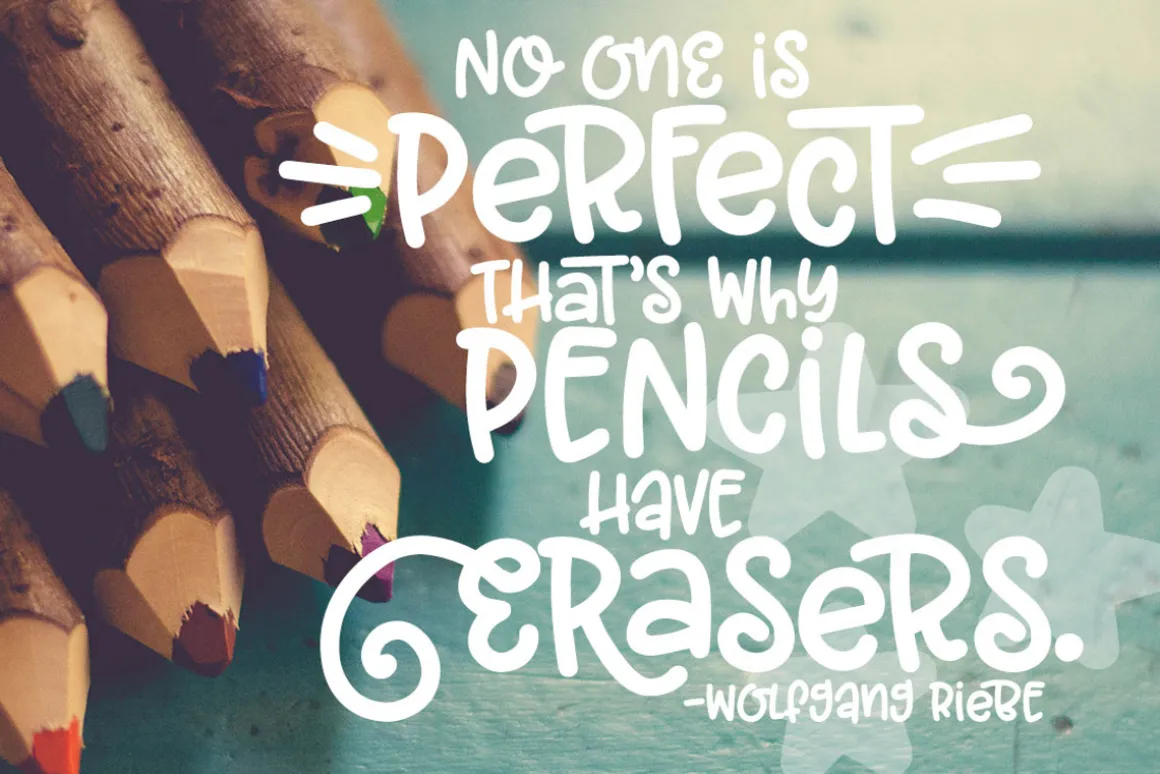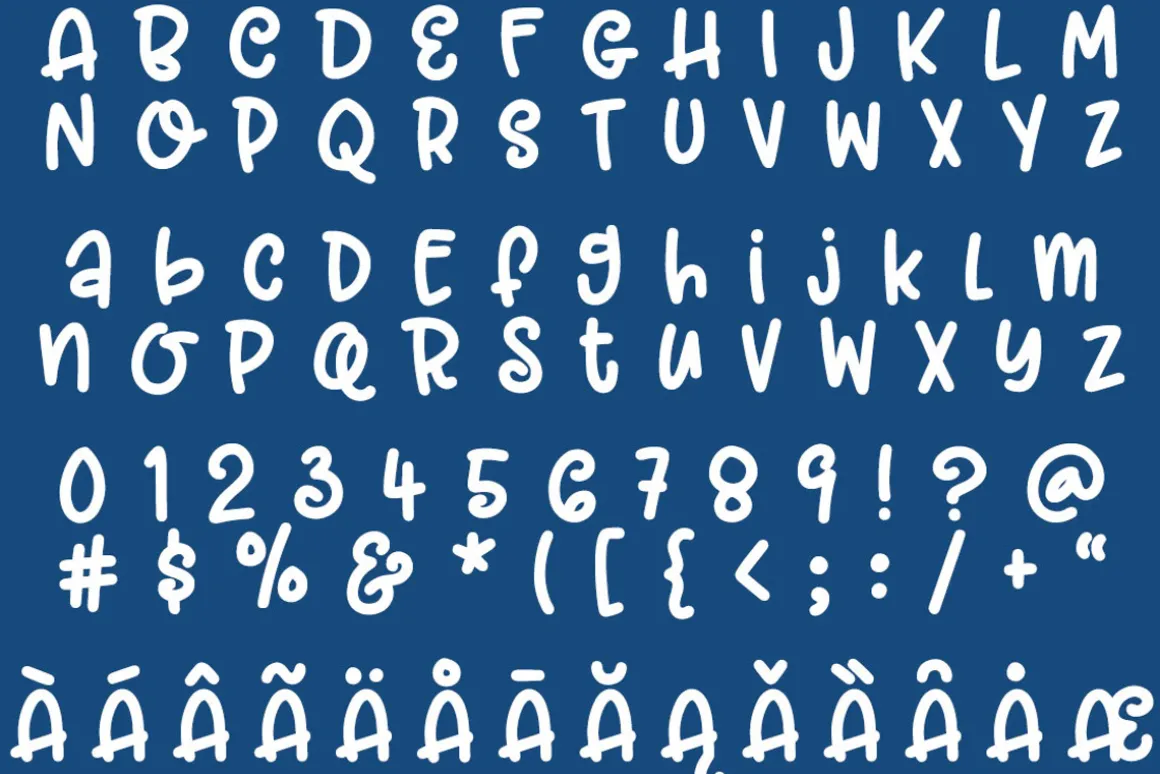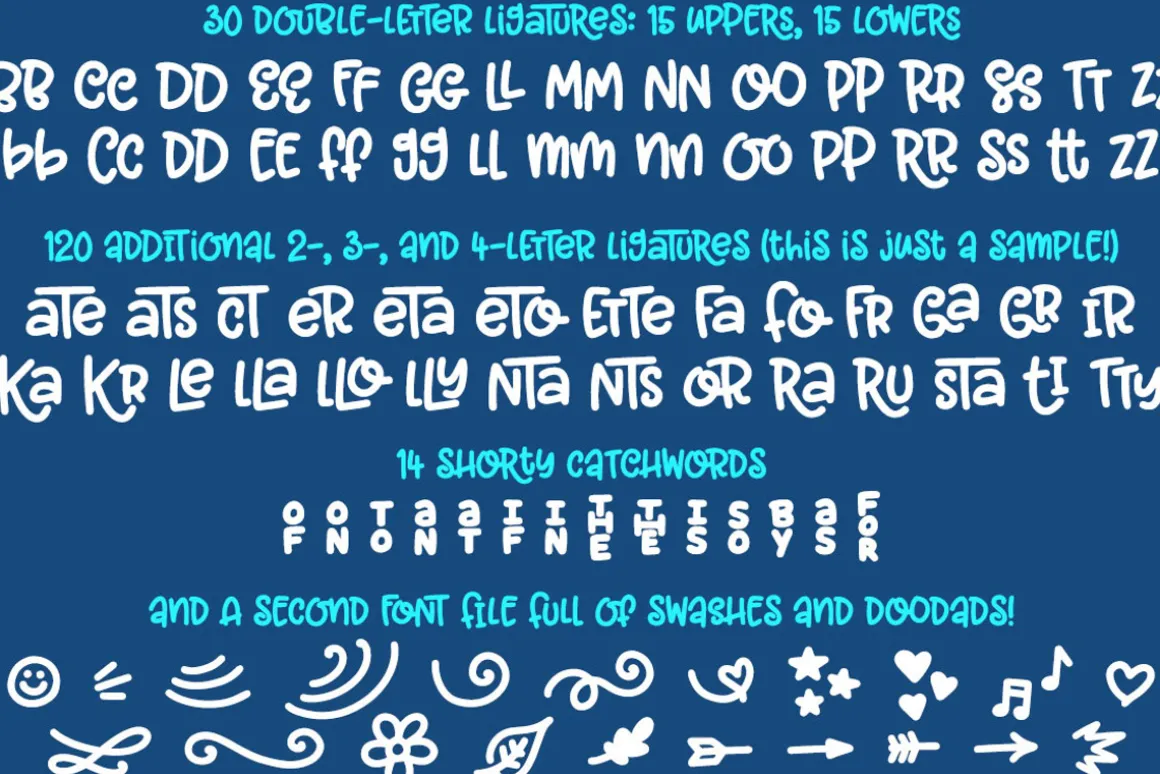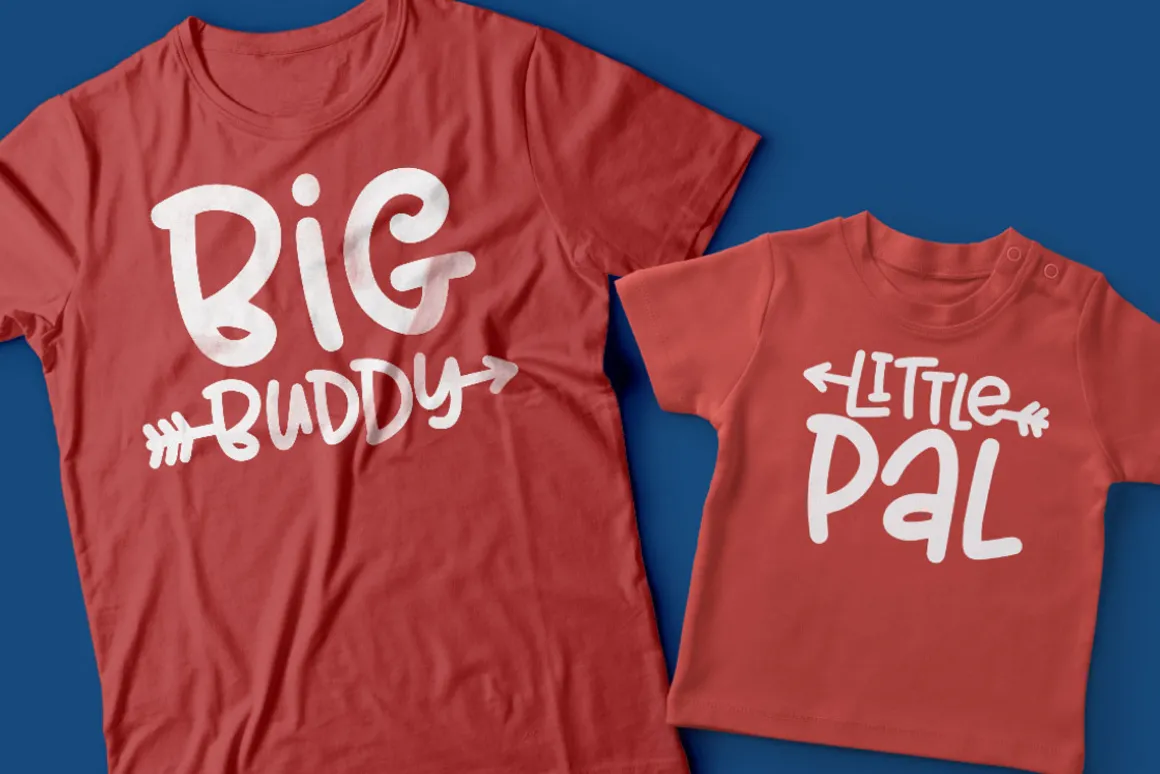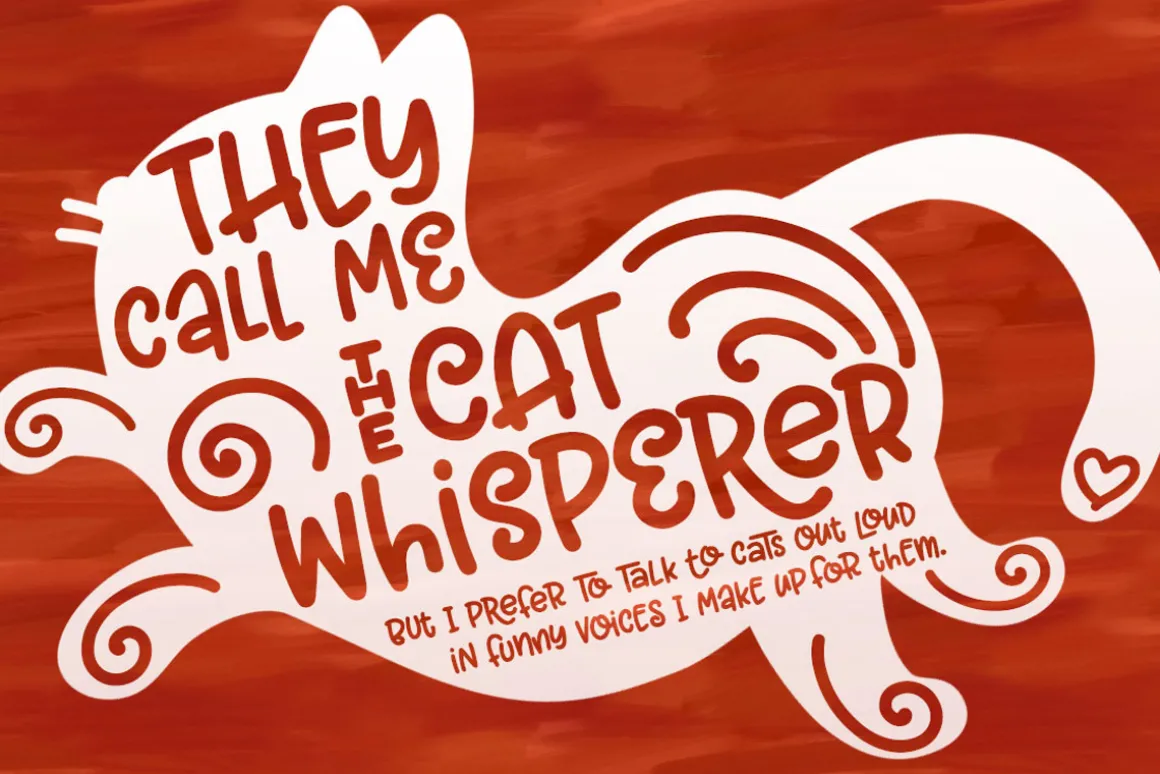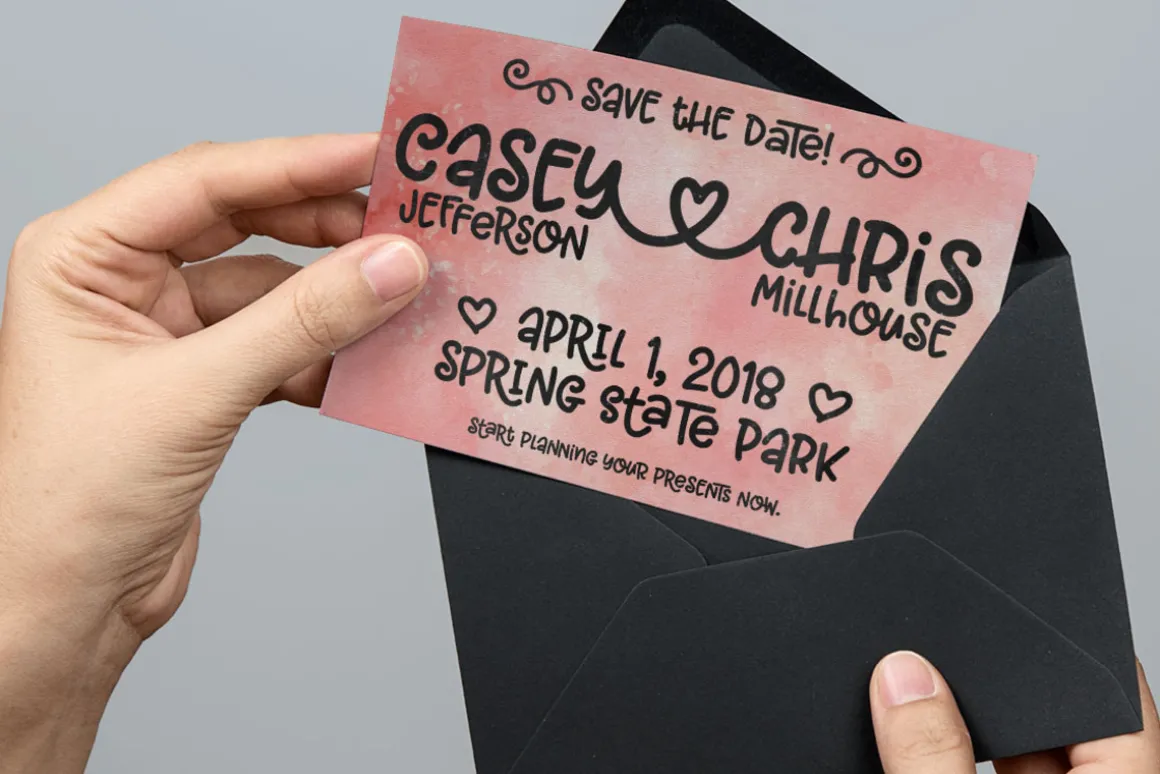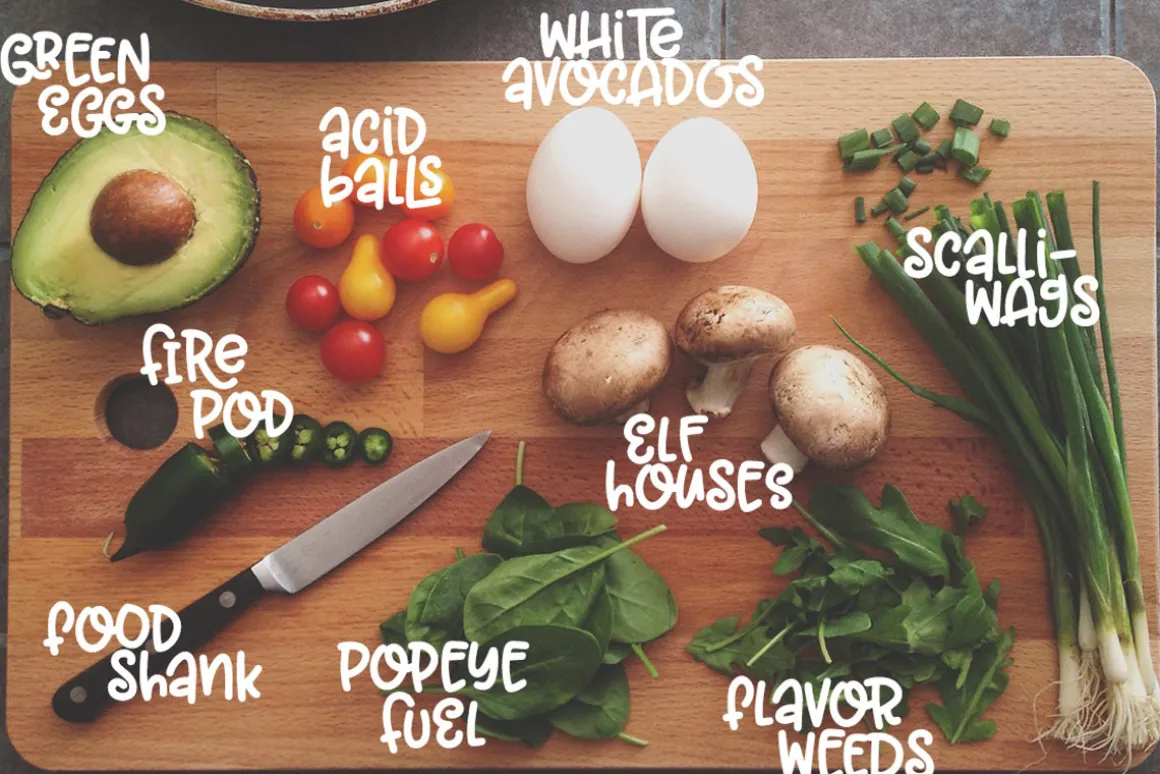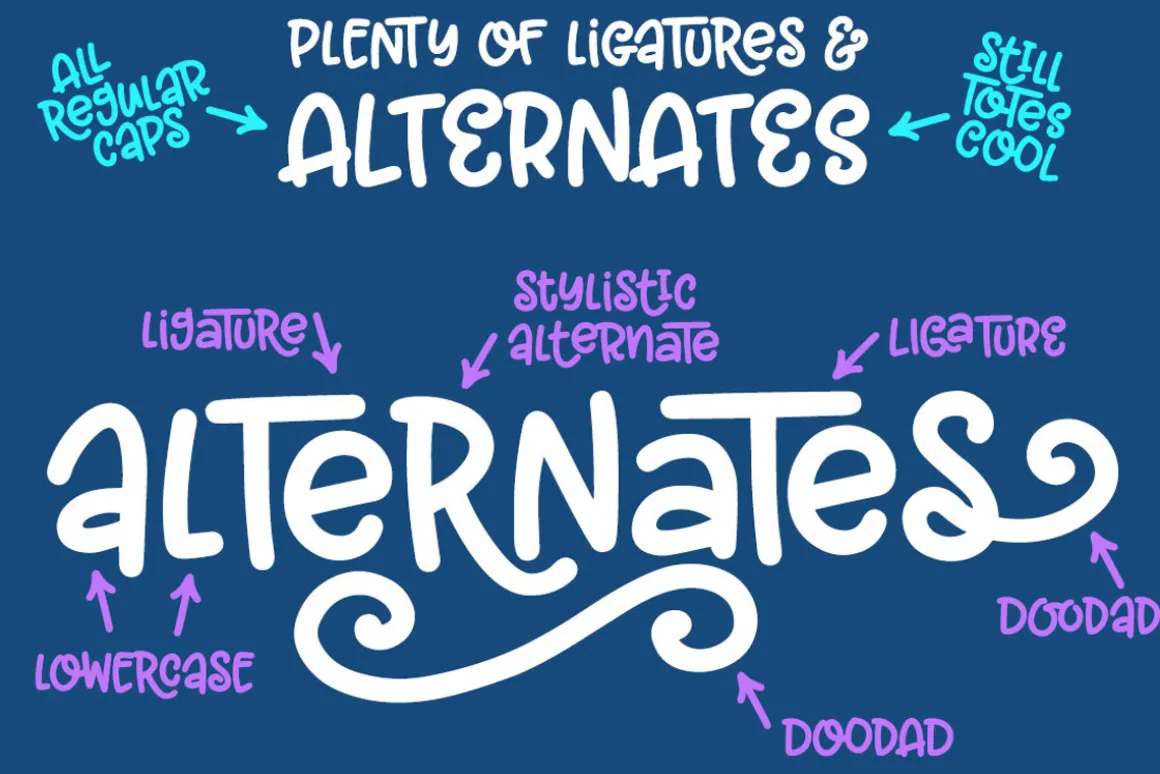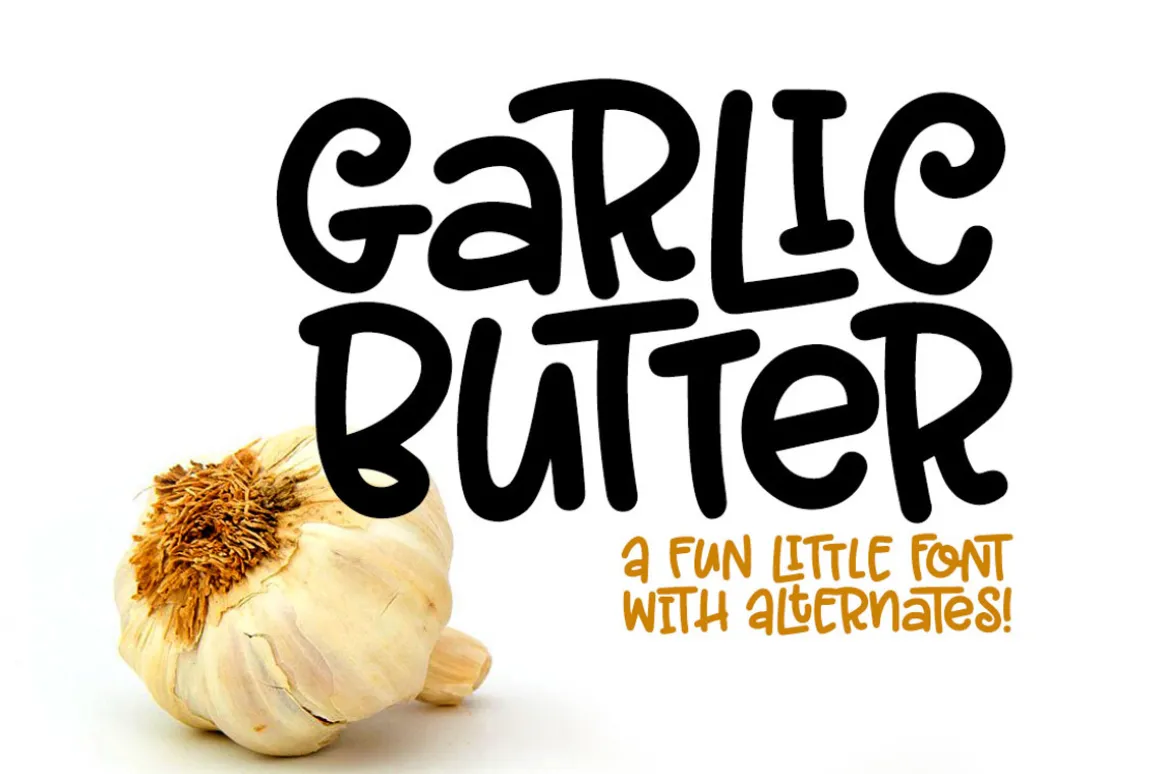
It’s smooth, it’s cute, it’s fun, and it’s mighty tasty: it’s Garlic Butter! A mixed-case font with lots of combination possibilities.
Garlic Butter is a pair of fonts perfect for all of your fun designs. The main font file comes with the usual characters (A-Z, a-z, 0-9, and tons of punctuation), as well asover 300 accented characters to support most Latin-based languages. Plus, it comes with over 150 ligatures and alternate letters!
You also get the Garlic Butter Doodads file, full of swirls, swashes, icons, arrow heads and tails, catchwords, and other decorative items. They were all created with the same brush, and are all sized the same as the Garlic Butter letters, so you can be assured they’ll work great together!
Garlic Butter features:
- 15 uppercase double-letter ligatures
- 15 lowercase double-letter ligatures
- 14 short catchwords (located in the Unicode PUA)
- Over 120 extra 2-, 3-, and 4-letter ligatures
- Over 300 extended Latin characters for language support
- Fully PUA-encoded for full access to all characters
Garlic Butter Doodads features:
- 14 short catchwords (same ones that are in the regular file)
- 52 decorative items (flourishes, icons, arrows, etc.)